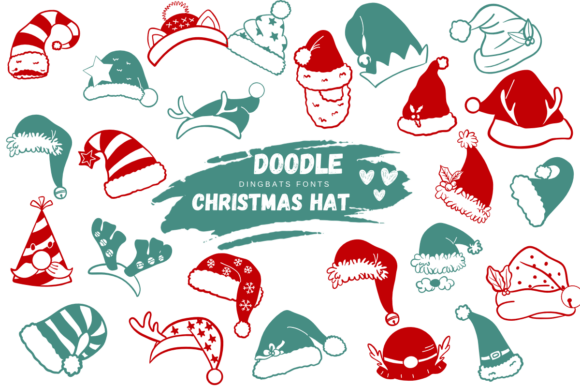
Doodle Christmas Hat Font: Add a Festive Touch to Your Creative Projects
The holiday season is upon us, and what better way to get into the spirit than with a festive font that can add a touch of merriment to your creative projects? Look no further than the Doodle Christmas Hat Font, a delightful dingbats font that’s perfect for a variety of applications. In this article, we’ll take a closer look at this charming font and explore the many ways you can use it to enhance your creative endeavors.
What is Doodle Christmas Hat Font?
Doodle Christmas Hat Font is a unique dingbats font that features a festive theme, complete with Christmas hats, trees, and other holiday-themed icons. This font is perfect for anyone looking to add a touch of whimsy and fun to their creative projects. Whether you’re working on a wedding invitation, a DIY craft, or a logo design, Doodle Christmas Hat Font is sure to bring a smile to your face and a dash of holiday cheer to your work.
Features of Doodle Christmas Hat Font
So, what makes Doodle Christmas Hat Font so special? Here are just a few of its key features:
- Festive theme: This font features a range of holiday-themed icons, including Christmas hats, trees, and more.
- Dingbats design: Doodle Christmas Hat Font is a dingbats font, which means it’s made up of symbols and icons rather than traditional letters and numbers.
- Versatile: This font can be used for a wide range of creative projects, from wedding invitations to DIY crafts and decorations.
Uses for Doodle Christmas Hat Font
So, how can you use Doodle Christmas Hat Font in your creative projects? Here are just a few ideas to get you started:
Wedding Invitations
If you’re planning a holiday wedding or just want to add a touch of festive flair to your wedding invitations, Doodle Christmas Hat Font is a great choice. You can use the font to create custom icons and graphics that match your wedding theme.
DIY Crafts
Doodle Christmas Hat Font is perfect for DIY crafts, such as handmade cards, gift tags, and decorations. You can use the font to add a personal touch to your crafts and make them more special.
Decorations
If you’re looking for a way to add some festive flair to your holiday decorations, Doodle Christmas Hat Font can help. You can use the font to create custom signs, banners, and other decorations that match your holiday theme.
Logos and Branding
Doodle Christmas Hat Font can also be used to create custom logos and branding elements for your business. If you’re looking for a way to add a touch of holiday cheer to your brand, this font is a great choice.
Tips for Using Doodle Christmas Hat Font
Here are a few tips for using Doodle Christmas Hat Font in your creative projects:
- Experiment with different sizes and colors: Don’t be afraid to try out different sizes and colors with Doodle Christmas Hat Font. You can use the font in a variety of sizes and colors to create a unique look.
- Combine with other fonts: Doodle Christmas Hat Font can be paired with other fonts to create a unique and interesting look. Try combining it with a traditional font for a fun and playful contrast.
- Use it sparingly: While Doodle Christmas Hat Font is a fun and festive font, it can be overwhelming if used too much. Try using it sparingly to add a touch of holiday cheer to your designs.
Doodle Christmas Hat Font is a fun and festive dingbats font that’s perfect for adding a touch of holiday cheer to your creative projects. With its festive theme, versatile design, and ease of use, this font is a great choice for designers and non-designers alike. Whether you’re working on a wedding invitation, DIY craft, or logo design, Doodle Christmas Hat Font is sure to bring a smile to your face and a dash of holiday cheer to your work.
- What is Doodle Christmas Hat Font?
- Doodle Christmas Hat Font is a dingbats font with a festive theme, featuring Christmas hats, trees, and other holiday-themed icons.
- What can I use Doodle Christmas Hat Font for?
- Doodle Christmas Hat Font can be used for a wide range of creative projects, including wedding invitations, DIY crafts, decorations, logos, and more.